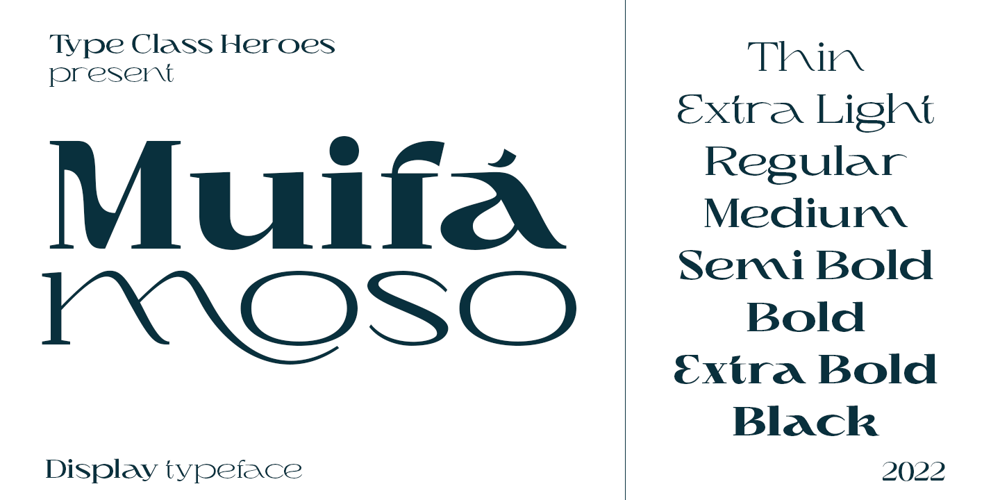
Muifamoso Font Family was designed by Pande Made and published by TypeClassHeroes. Muifamoso contains 9 styles and family package options. Muifamoso designed to become a elegant, this font has the potential to bring each of your creative ideas to the highest level. Combine with ligatures and special alternative glyphs so you can create a lots with layouts and compositions. Muifamoso brings a touch of luxury and bespoke custom typography to logos, websites, social media quotes, wedding branding, and more.Whats Included? Uppercase & Lowercase Number & Symbol International Glyphs Multilingual support Thank you so much for checking out my shop, and please get in touch if you have any questions!